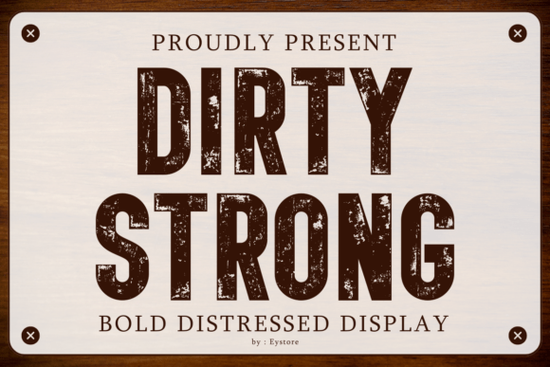
If you're searching for a typeface that captures that worn, industrial look without feeling like a cheap digital effect, Dirty Strong Font is worth a closer look. It's a bold, distressed sans-serif display font designed specifically for vintage industrial aesthetics and rugged streetwear. The gritty texture is authentic, not just a simple filter – it gives your lettering a real eroded feel that works on everything from t-shirts and tote bags to warehouse signage and coffee packaging. Designers working on branding logos or automotive posters will appreciate how the rough edges add character while keeping the letters fully readable.
What kind of projects suit a bold, distressed typeface like this?
Dirty Strong Font shines wherever you need a masculine, strong presence with a touch of wear and tear. Because it's a display font, it works best at larger sizes where the texture can be appreciated. Here are a few specific uses that play to its strengths:
T-shirt graphics and apparel – especially for streetwear brands, metal band merch, or workwear inspired lines. The distressed look pairs naturally with screen printing or DTG.
Posters and signage – warehouse themed events, auto shows, or any design that needs a gritty, handmade feel. The bold weight ensures it reads from a distance even with the texture.
Branding for coffee, tools, or outdoor gear – small businesses selling artisanal products often want a logo that feels honest and raw. Dirty Strong gives that vibe without requiring a lot of extra distressing work.
Packaging for limited editions – think small batch sauces, craft beers, or retro style products where the label itself tells a story.
If you've used other rough fonts before, you'll notice that Dirty Strong keeps the letterforms consistent – the edges are rugged but the shapes stay clear. That's a big help when you need to output multiple designs without manual cleanup.
How does Dirty Strong Font compare to other weathered display fonts?
There are plenty of grunge fonts out there, but not all of them balance readability with texture this well. For example, Good Vibes Only Duo leans more into a playful, brush script style – great for cheerful quotes but not built for industrial grit. Creative Vintage Font has a retro feel that's cleaner, while Happy Brush Font is all about energetic brush strokes. Dirty Strong sits in its own space: heavy, textured, and unapologetically rough.
Another one to keep in mind is Retro Magic Font, which has a nostalgic twist but lacks the same roughed up surface. If you're doing a project where the wear and tear is central to the design, Dirty Strong gives you that authentic eroded look right out of the box. You can even layer it with other textures or place it on gradient backgrounds to enhance the industrial mood.
Is this font practical for print-on-demand sellers or small business owners?
Absolutely. Print-on-demand sellers especially benefit from fonts that look good without extra editing. Dirty Strong's distressed details mean you don't have to add your own grunge effects – the font itself does the job. It works well for:
Mockups – try it on a black t-shirt mockup with a white or yellow text and see the texture pop.
Social media graphics – use it for Instagram posts announcing a new product drop or a limited collection.
Labels for handmade goods – if you're selling candles, soap, or denim, a bold font with texture gives a handcrafted feel.
Just keep in mind that distressed fonts can be harder to read at very small sizes. Stick to headlines, logos, and short phrases. For body text or fine print, pair it with a clean sans-serif like Helvetica or Montserrat.
What should you look for in a font before downloading?
Before you commit to any display font, test how it handles different letters, especially if your design includes numbers or special characters. Dirty Strong Font includes uppercase and lowercase, punctuation, and multilingual support in most versions. Check the file format – most designers prefer OTF or TTF. And if you're using it for commercial projects, confirm the license covers print-on-demand or merchandise sales.
You can find the font by searching Dirty Strong directly, where you'll see product details and sample images. Also browse related styles like Retro Magic Font if you want a slightly cleaner alternative for contrast.
Quick checklist: Is Dirty Strong Font right for your next project?
Do you need a display font for large text? If yes, this works. For small body text, look elsewhere.
Is your design aiming for a vintage or industrial feel? Perfect match. If you need clean or elegant, skip it.
Will you use it for print or digital? Both, but the texture shows best in print.
Do you want a font that already has distressed details? Saves you time – no extra grunge effects needed.
Can you pair it with a simpler font for hierarchy? Great practice. Combine with a neutral sans-serif for contrast.
Testing one design with Dirty Strong before committing to a full project is a smart move. Drop it into a mockup, print a sample, or preview it on a product page. If the worn look fits your brand's voice, you've found a solid tool for your font library.